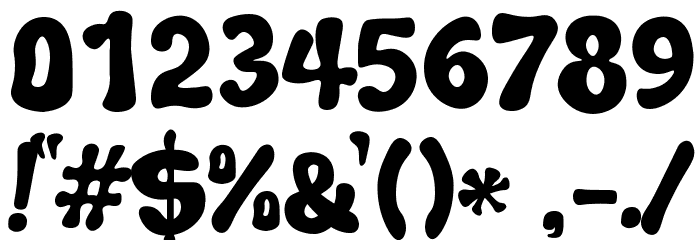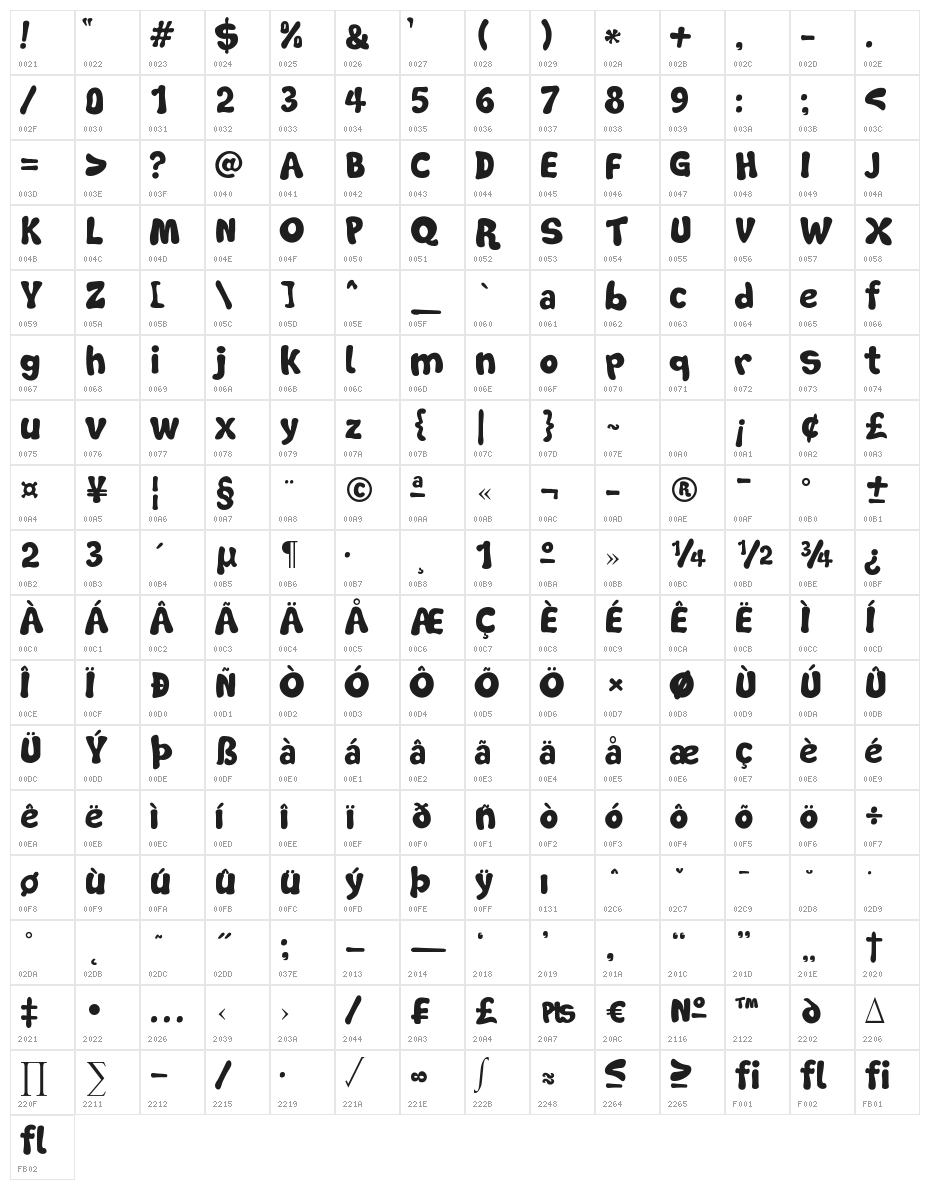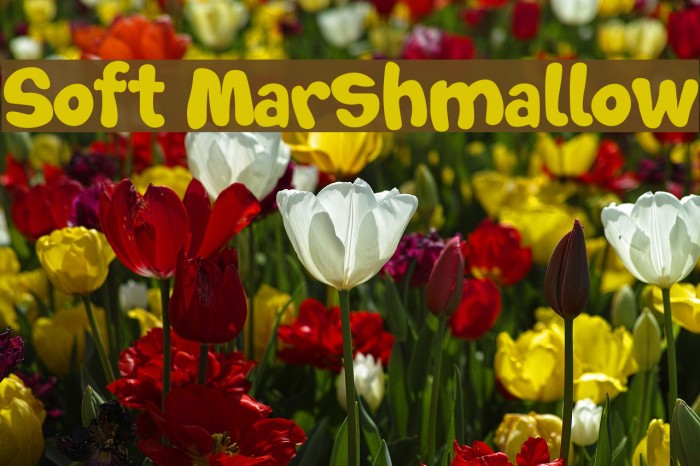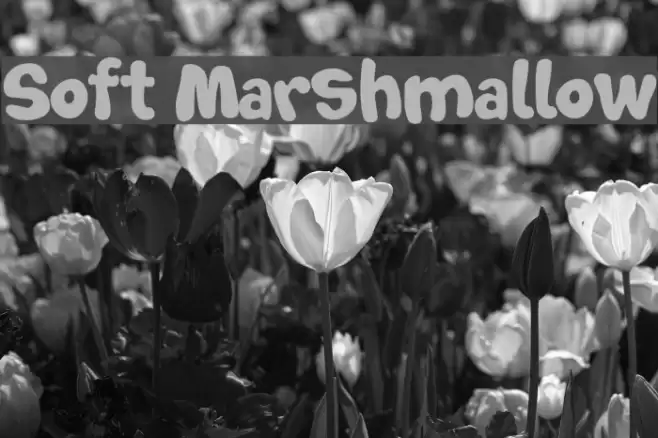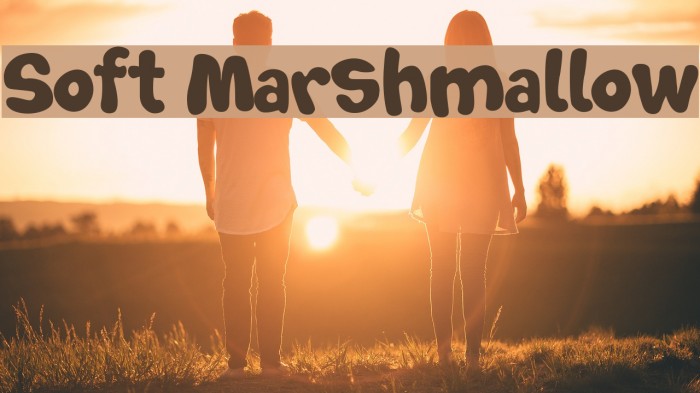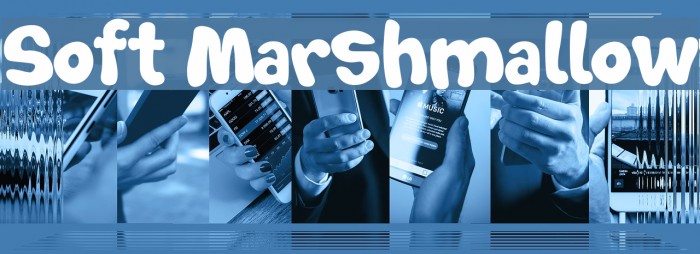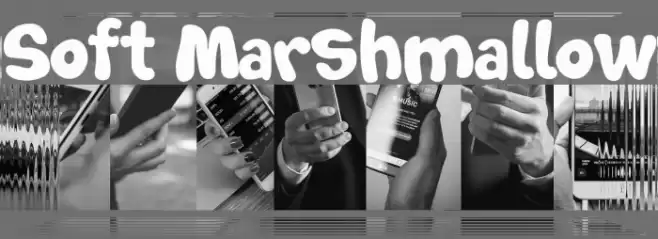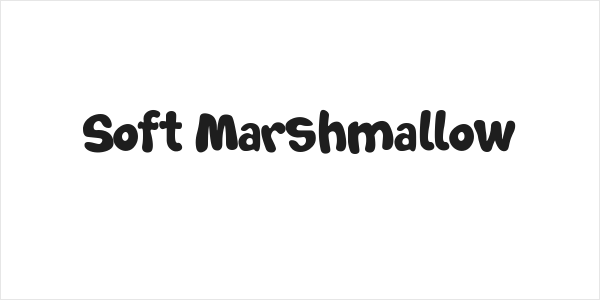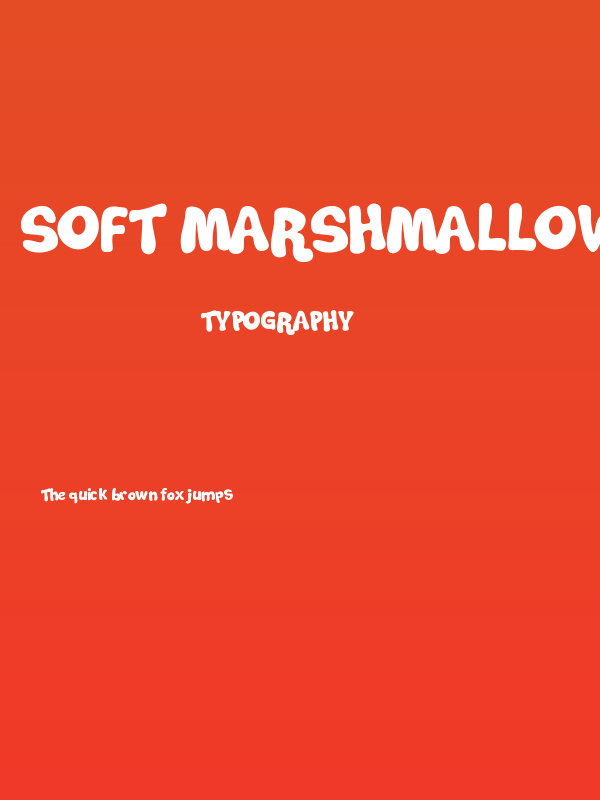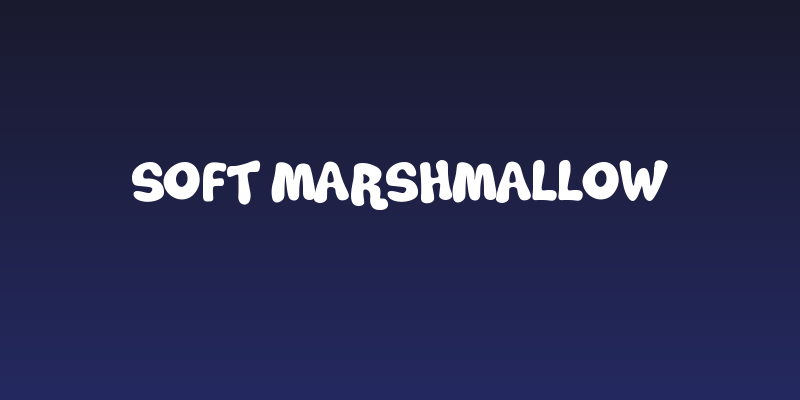
Soft Marshmallow Font
This playful and whimsical font features rounded, soft edges that give it a marshmallow-like appearance. The characters are bold and have a bubbly, inflated style, making them stand out with a friendly and approachable vibe. The font maintains a consistent thickness throughout, contributing to its cohesive and unified look. It is highly legible, with clear distinctions between each letter and number, making it suitable for various creative applications. The exaggerated curves and smooth lines add a touch of fun and creativity, making it ideal for projects that aim to convey a sense of joy and lightheartedness.
A playful, rounded font with a marshmallow-like, bubbly appearance.
• Proposed Projects: Ideal for children's books, playful branding, party invitations, and fun social media graphics.
• Category: Decorative/Display
• Bold: Yes
• Italic: No
• Weight: Bold
• Width: Normal
• Character Spacing: Normal
• Contrast: Low
• Overall Style: Playful
• Use Case: Headlines, Logos, Posters